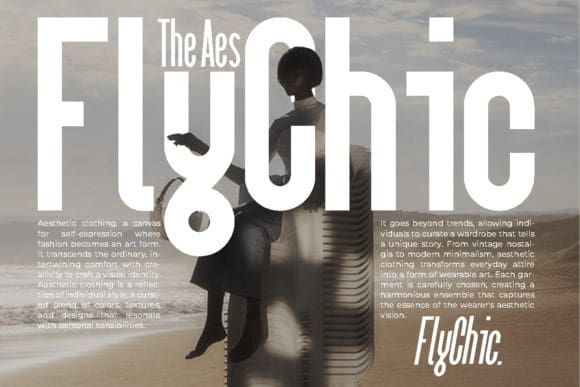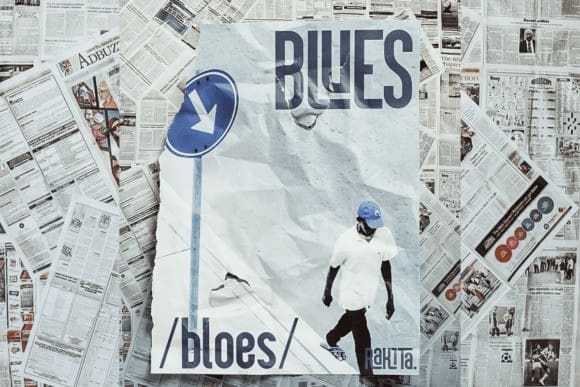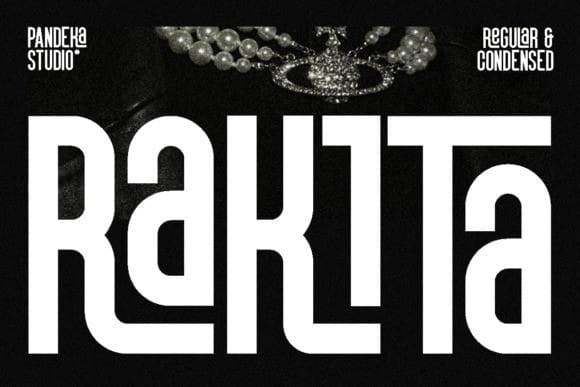
Rakita Font
Rakita Font is a cool, sleek sans-serif font that exudes modernity and sophistication. With clean lines and a minimalist design, it strikes the perfect balance between elegance and contemporary style. Ideal for projects seeking a refined aesthetic, Rakita delivers a polished and professional appearance across various applications.